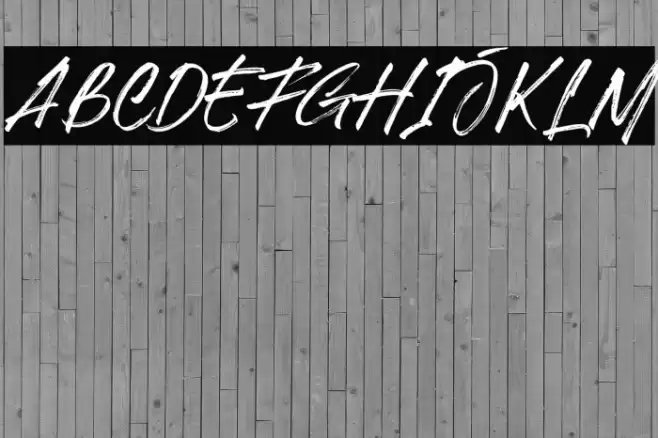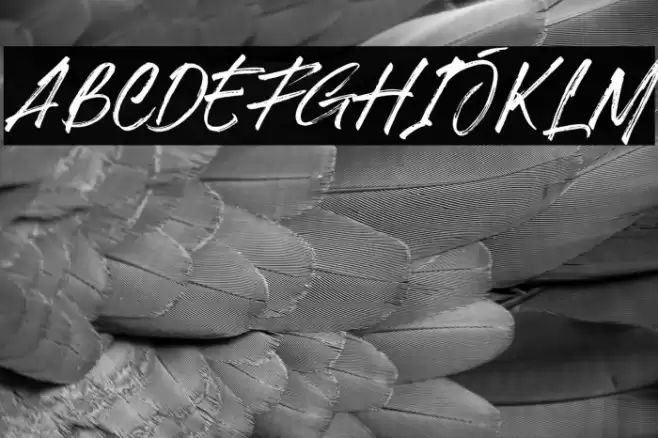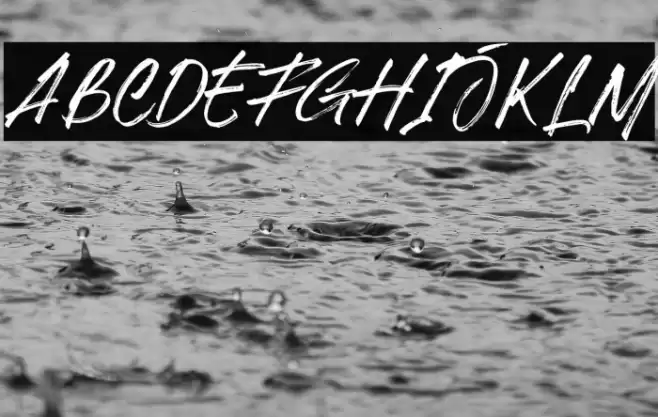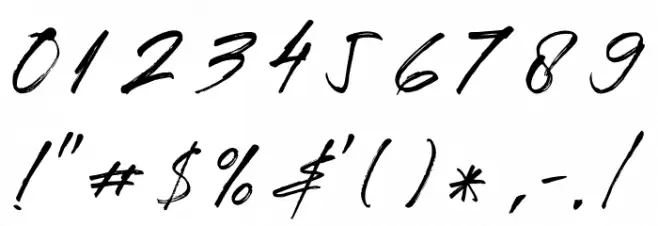
Hillstone Demo FPU Font
Hillstone Demo FPU Description
This font exhibits a dynamic and energetic handwritten style, characterized by its fluid and expressive strokes. The letters have a natural, organic flow, with varying thickness that adds a sense of movement and personality. The uppercase letters are bold and confident, while the lowercase letters maintain a consistent rhythm. Numbers and special characters are crafted with the same attention to detail, ensuring a cohesive look throughout. The overall appearance is both artistic and legible, making it suitable for creative and informal applications.
A dynamic, handwritten font with expressive and fluid strokes from Uncategorized fonts.
- Font: Hillstone Demo FPU
- Proposed Projects: Ideal for branding projects, invitations, greeting cards, and artistic posters.
- Use Case: Logos, Headlines, Creative projects